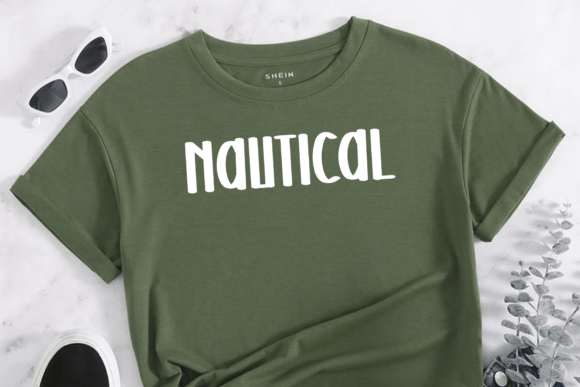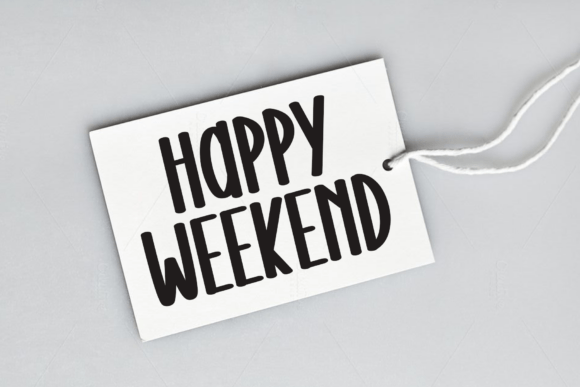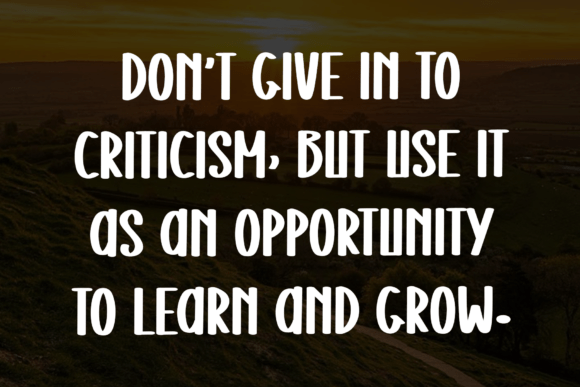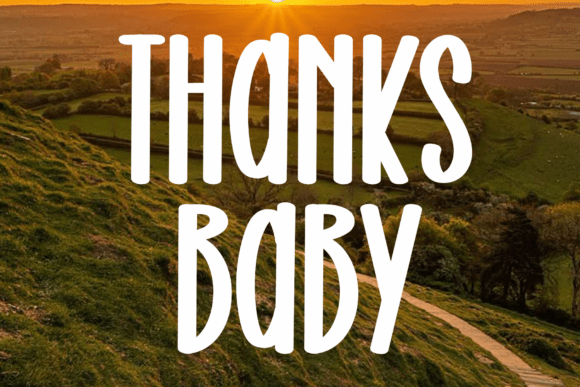
Good Morning Font: A Vibrant and Inviting Typeface to Boost Your Creative Day
Are you tired of using the same old fonts for your designs? Look no further than Good Morning, a modern display font that’s sure to inject a dose of energy and warmth into your visual identity. With its ultra-tall, condensed letterforms and soft, rounded terminals, Good Morning is the perfect choice for designers and crafters looking to add a touch of personality to their work.
The Inspiration Behind Good Morning
Good Morning is more than just a font – it’s a feeling. Its design is inspired by the warmth and approachability of a sunny morning, making it perfect for lifestyle branding, social media content, and any project that requires a fresh and inviting vibe. The font’s creator aimed to capture the spontaneous feel of a marker sketch, with a clean monolinear stroke and slightly irregular baseline that gives it a hand-drawn, organic look.
Key Features of Good Morning Font
- Ultra-tall, condensed letterforms: Good Morning’s letterforms are tall and slender, making them perfect for headlines and titles that need to make a statement.
- Soft, rounded terminals: The font’s soft, rounded terminals add a touch of warmth and friendliness to its overall aesthetic.
- Rhythmic, hand-drawn silhouette: Good Morning’s hand-drawn silhouette gives it a unique, organic feel that’s perfect for designs that require a personal touch.
- Clean monolinear stroke: The font’s clean monolinear stroke ensures that it remains legible, even at large sizes.
- Slightly irregular baseline: The font’s slightly irregular baseline adds to its hand-drawn feel, giving it a sense of spontaneity and creativity.
Good Morning is an incredibly versatile font that can be used for a wide range of design projects. Here are just a few ideas to get you started:
- Lifestyle branding: Use Good Morning to create a warm and inviting brand identity that’s perfect for lifestyle businesses, such as yoga studios, coffee shops, and wellness centers.
- Sunrise-themed social media content: Good Morning is perfect for social media content that requires a fresh and uplifting vibe, such as sunrise-themed posts and stories.
- Casual apparel headers: The font’s bold, condensed letterforms make it perfect for casual apparel headers, such as t-shirt designs and hoodie graphics.
- Organic product packaging: Good Morning’s natural, hand-drawn aesthetic makes it a great choice for organic product packaging, such as labels for artisanal foods and eco-friendly products.
Why Choose Good Morning Font?
So why choose Good Morning font for your next design project? Here are just a few reasons:
- Professional, human-centric warmth: Good Morning delivers a sense of professional, human-centric warmth that’s perfect for businesses that want to connect with their customers on a personal level.
- Infectious creative joy: The font’s vibrant energy and playful aesthetic make it perfect for designs that require a sense of creative joy and spontaneity.
- Exceptional legibility: Despite its bold, condensed letterforms, Good Morning remains exceptionally legible, even at small sizes.
In conclusion, Good Morning font is a vibrant and inviting typeface that’s perfect for designers and crafters looking to add a touch of personality to their work. With its ultra-tall, condensed letterforms, soft rounded terminals, and rhythmic, hand-drawn silhouette, Good Morning is sure to deliver a sense of professional, human-centric warmth and infectious creative joy to your visual identity. So why wait? Start your creative day with Good Morning font and discover a world of limitless design possibilities.